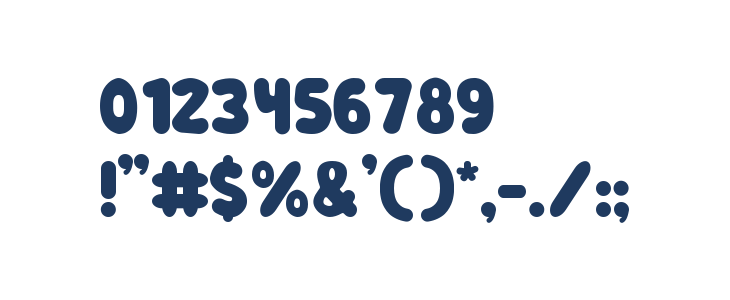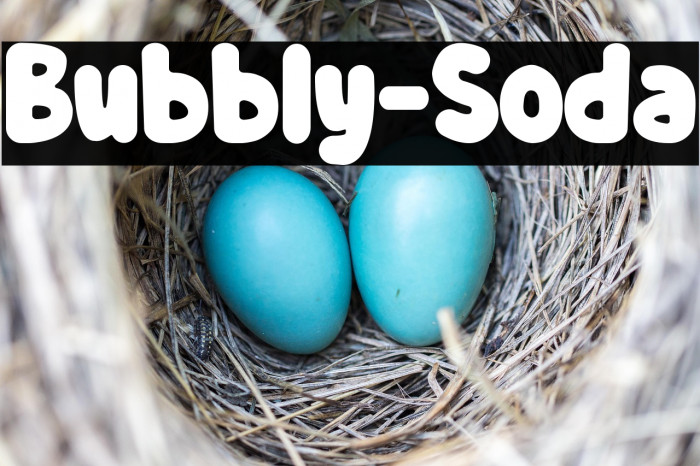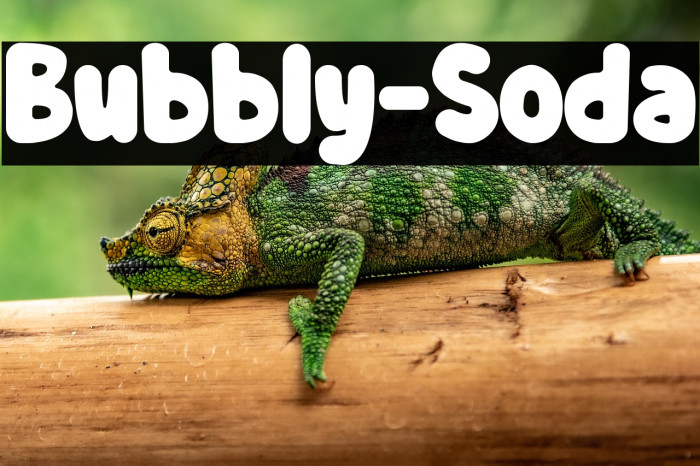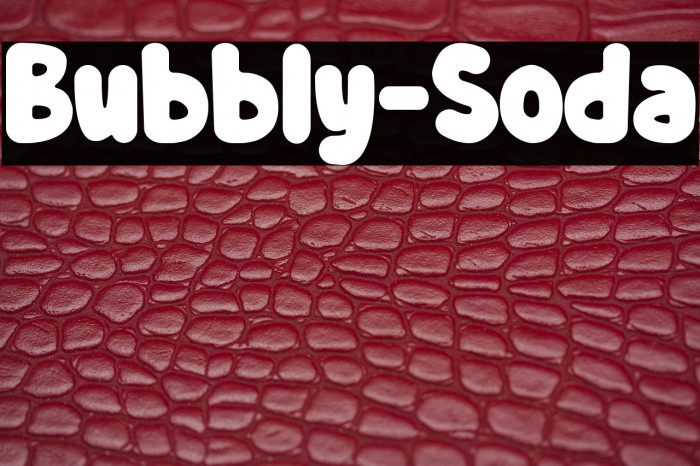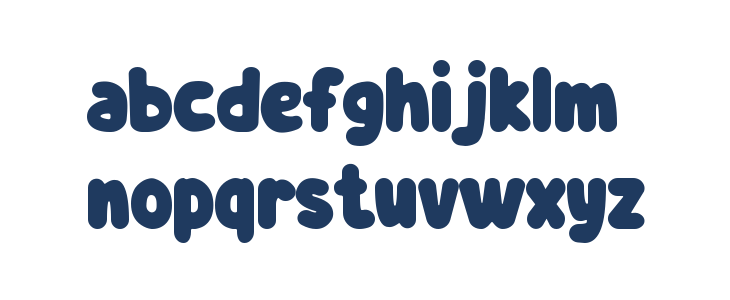
Bubbly-Soda Font
Bubbly-Soda Description
This playful and bold font features rounded, bubbly characters that exude a sense of fun and whimsy. The letters are thick and have a consistent stroke width, giving them a strong presence on the page. The rounded edges and lack of sharp angles contribute to a friendly and approachable aesthetic. This font is highly legible, making it suitable for a variety of display purposes. The numbers and special characters maintain the same bubbly style, ensuring a cohesive look across all text elements. Its unique style makes it stand out, perfect for projects that require a touch of creativity and lightheartedness.